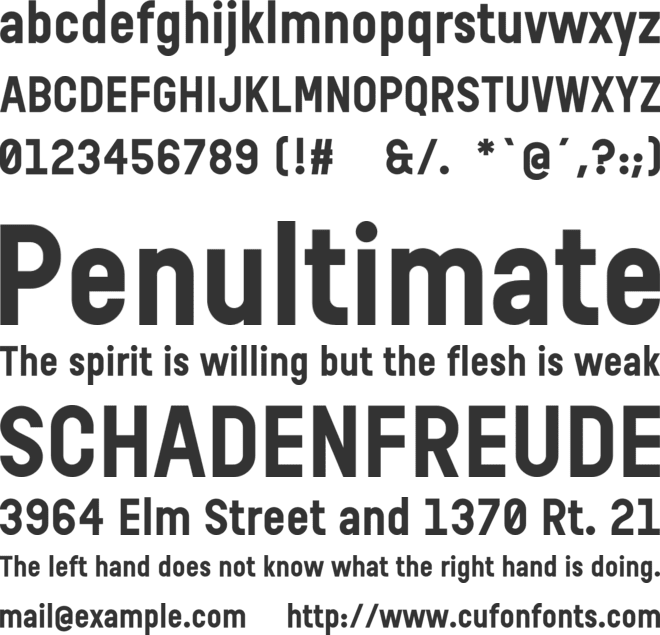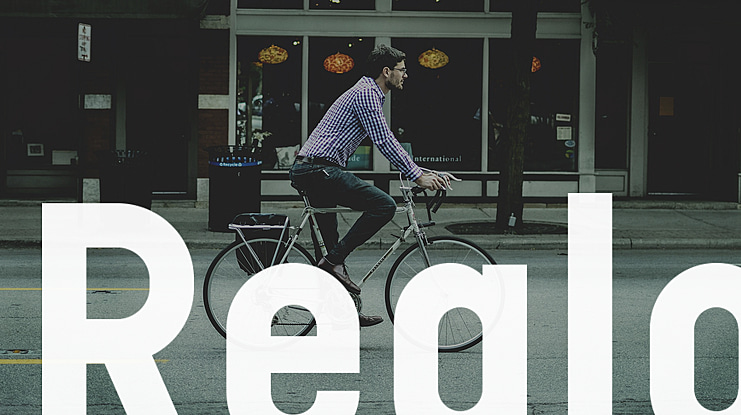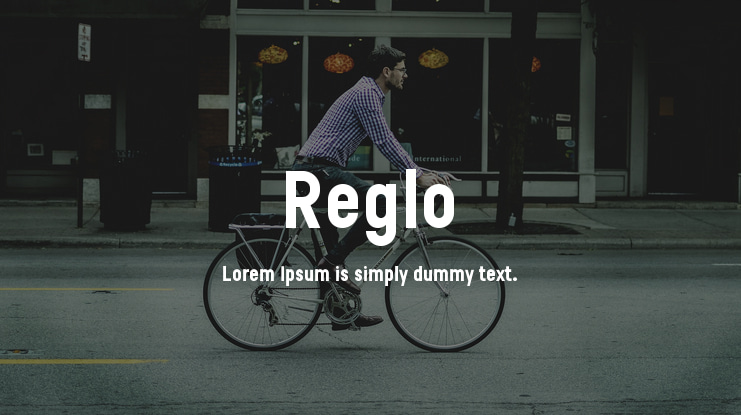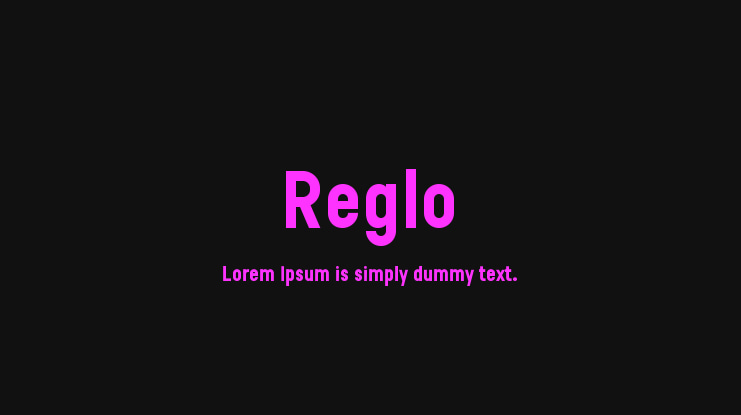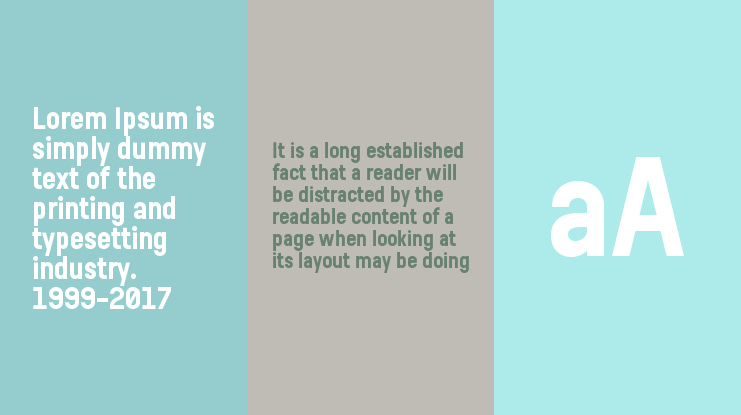
Reglo Font
Sebastien Sanfilippo
Reglo Bold is a geometric Sans designed by Sebastien Sanfilippo. Reglo Bold was initially designed for the identity of Radio Panik with Open Source Publishing. github.com/sebsan/Reglo